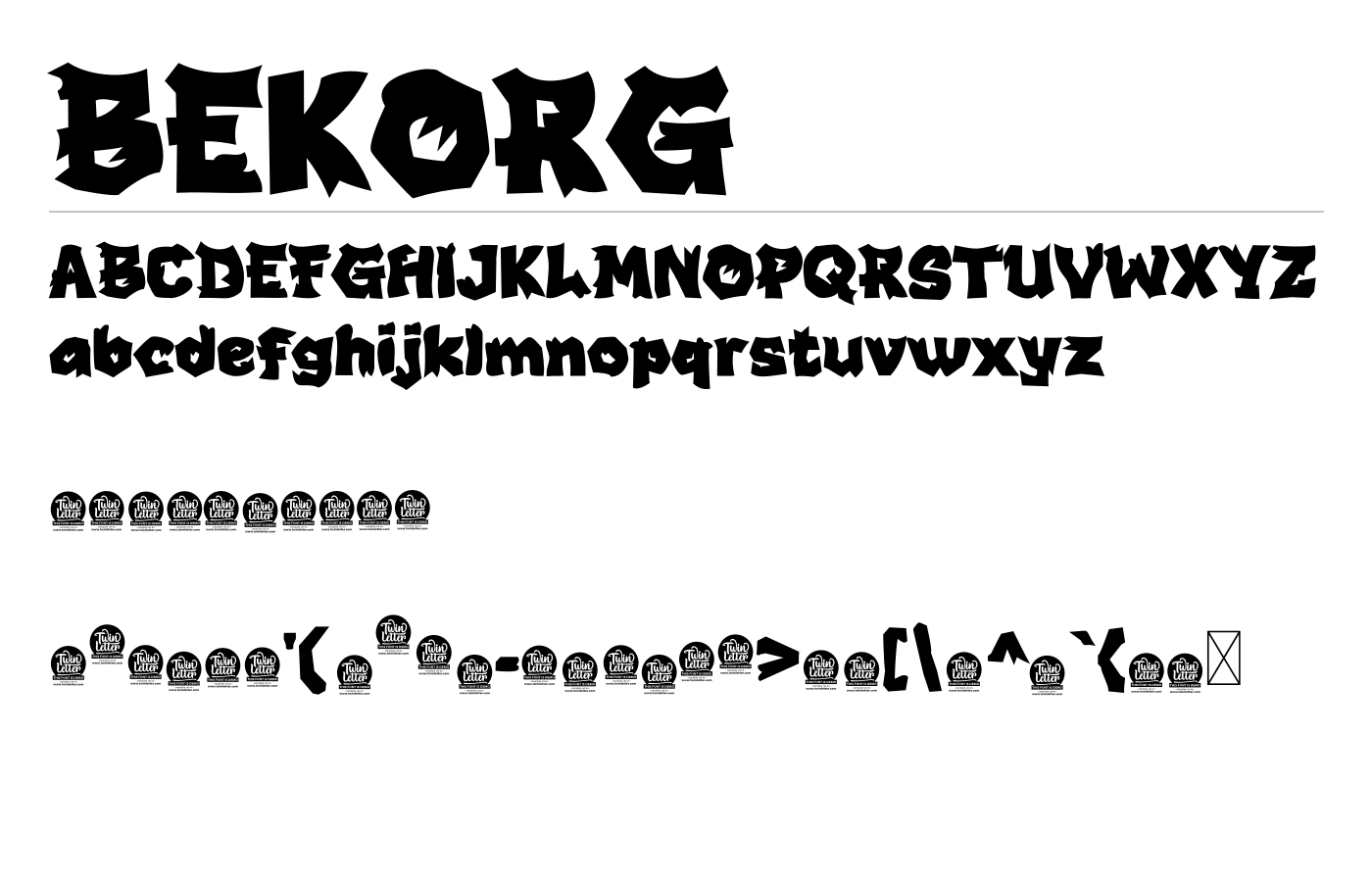
BEKORG is a bold, display sans serif font with a strong, edgy personality marked by sharp, irregular strokes that give it a hand-crafted, graffiti-like appearance. Its heavy weight, condensed width, and playful yet rugged letter shapes make it perfect for eye-catching headlines, logos, and creative branding that seek an urban, dynamic vibe. This font works best in designs that want to stand out with a rebellious, informal energy rather than for long body text.
BEKORG Font
About BEKORG Font